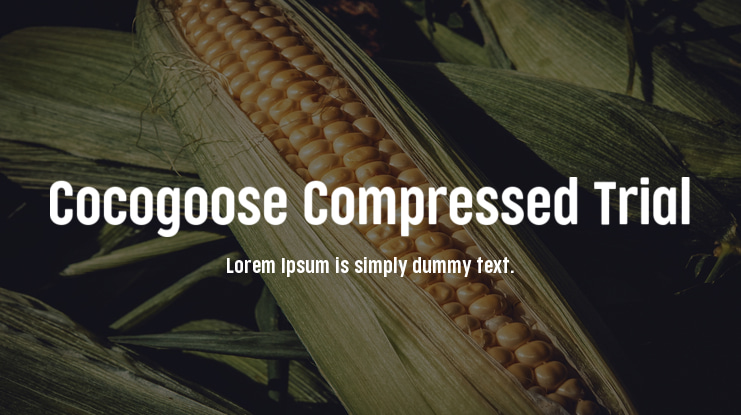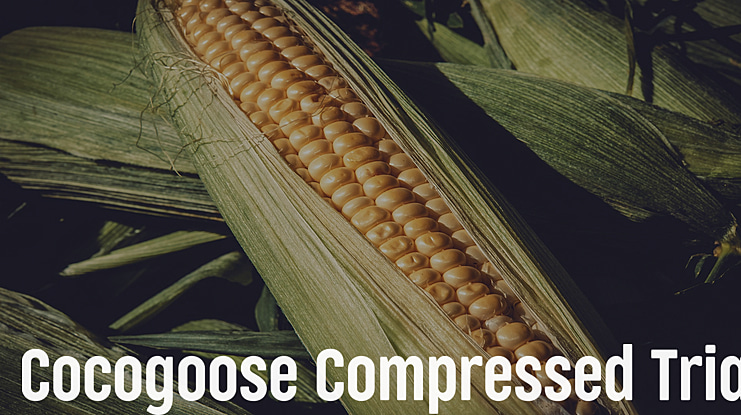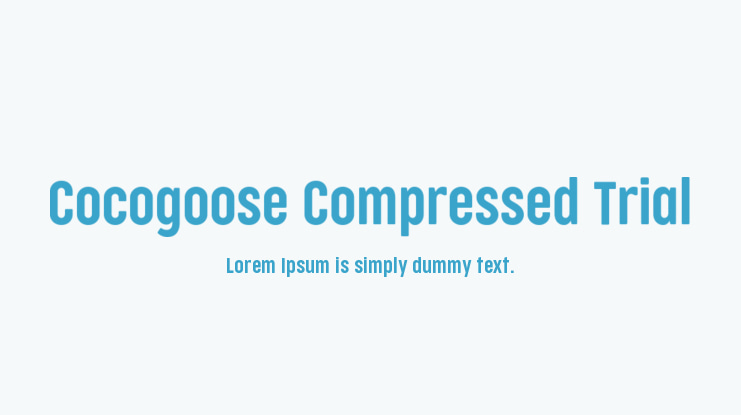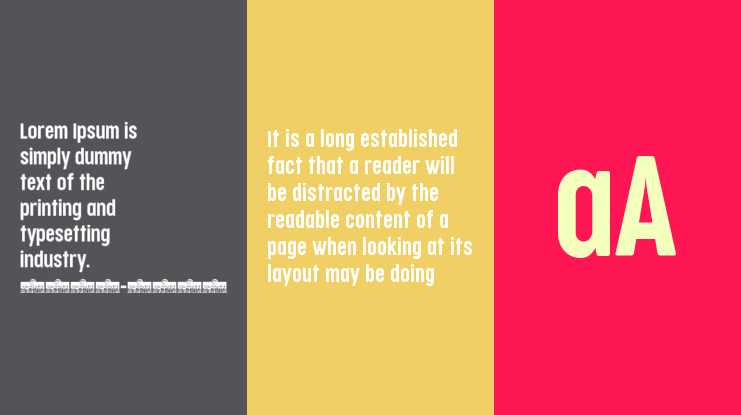
Cocogoose Compressed Trial Font Family
Cosimo Lorenzo Pancini
Cocogoose Narrows includes 3 different widths: condensed, compressed and narrow, each in multiple weights with italics, small capitals, alternates, old style numerals, full cyrillic and greek character sets, and sporting the beloved letterpress version. Perfect for logos and headings with a strong feel, but also very readable as a text font.